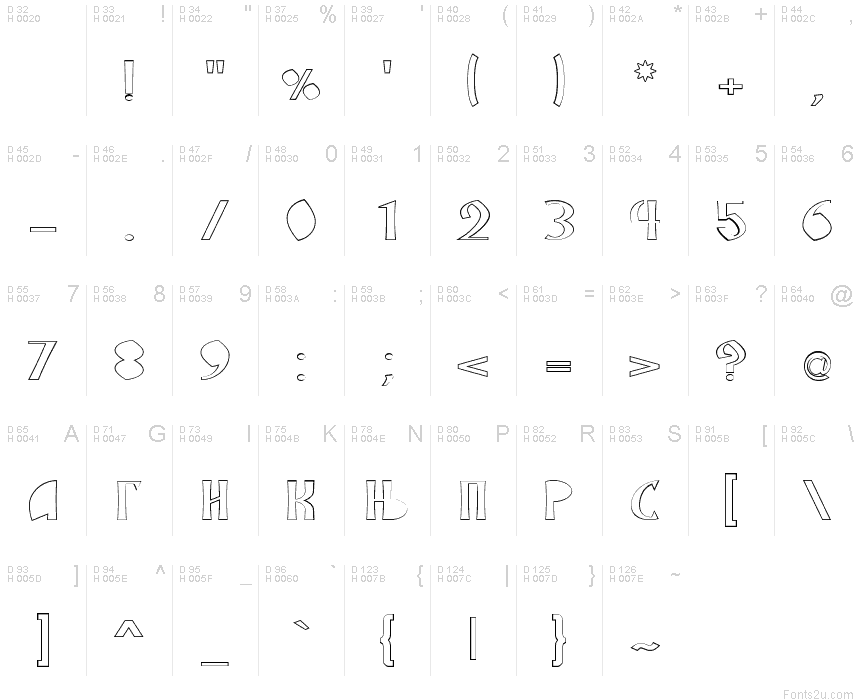
Srpska Kniga 34, by Nikola Kovanovic, is a free Cyrillic display font with a hand-drawn, book-cover character. The letters mix broad rounded curves with blunt verticals and those sharp little inward cuts, giving the font a folk-inflected, slightly carved feel rather than a neutral outline style.
It fits poster titles, cultural event graphics, book jackets, editorial cover lines, and short branding where a free font can bring a regional, literary tone without feeling antique. Because the forms are open and emphatic, it also works well for title cards and monogram-like initials where those notched curves do most of the talking.